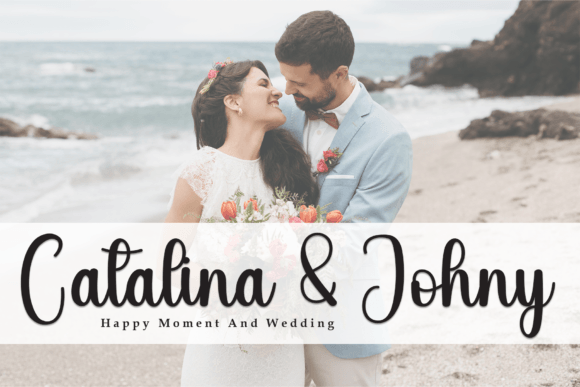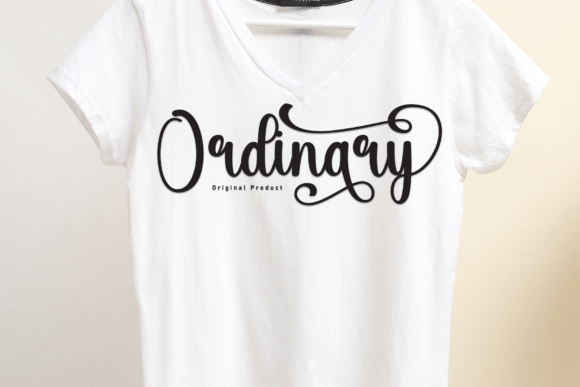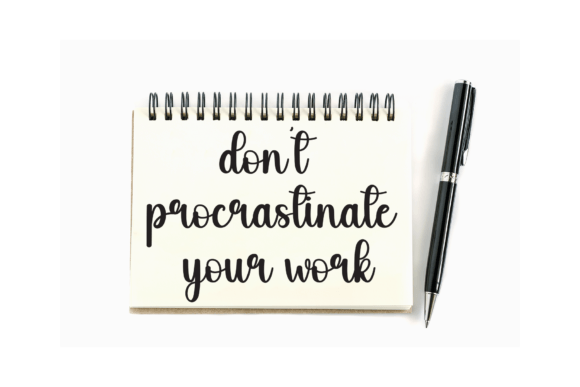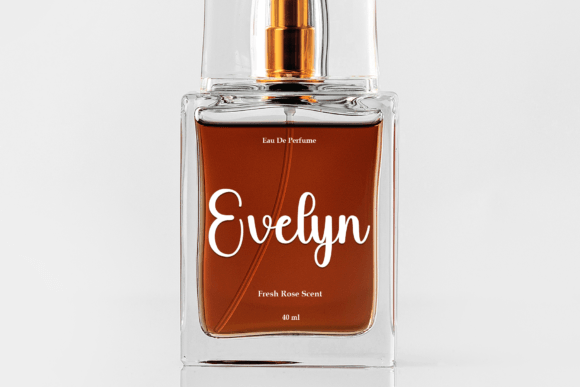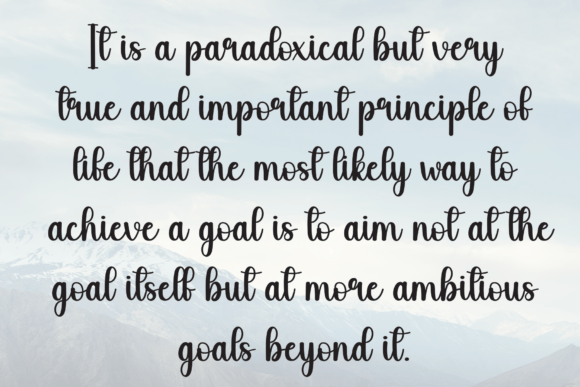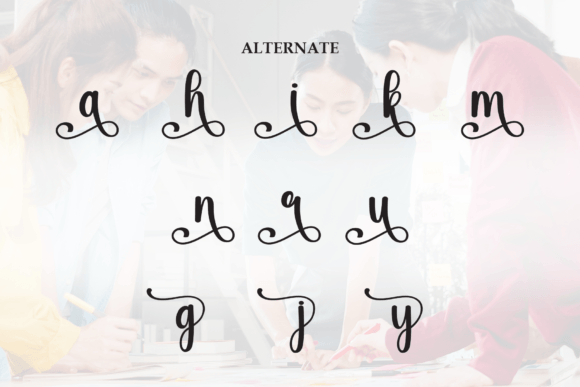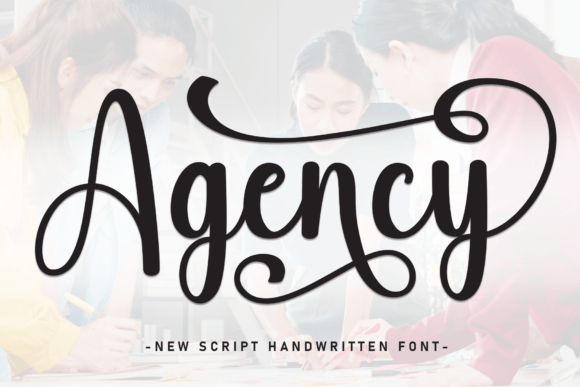
Introducing Agency Font: The Sweet and Friendly Handwritten Display Font
Are you looking for a font that can add a touch of fun and whimsy to your designs? Look no further than Agency Font, a sweet and friendly handwritten display font that’s perfect for a variety of creative projects. In this article, we’ll take a closer look at Agency Font, its features, and how you can use it to elevate your designs.
What is Agency Font?
Agency Font is a beautiful, handwritten display font that’s designed to bring a smile to your face. With its cute and fun appearance, this font is ideal for writing wedding invitations, cards, or any other design that might need a fun touch. Whether you’re a designer, crafter, or DIY enthusiast, Agency Font is a great addition to your font collection.
Key Features of Agency Font
• Handwritten appearance: Agency Font has a genuine handwritten look that’s perfect for creating personal and unique designs.
• Cute and fun: This font is designed to be playful and fun, making it ideal for designs that require a lighthearted touch.
• Display font: Agency Font is a display font, which means it’s perfect for headlines, titles, and other prominent text elements.
• Easy to read: Despite its playful appearance, Agency Font is easy to read, making it suitable for both digital and print designs.
Use Cases for Agency Font
Agency Font is a versatile font that can be used in a variety of creative projects. Here are some ideas to get you started:
• Wedding invitations: Add a touch of whimsy to your wedding invitations with Agency Font. It’s perfect for creating beautiful, handmade-style invitations that will set the tone for your special day.
• Greeting cards: Agency Font is ideal for creating fun and playful greeting cards for birthdays, holidays, and other special occasions.
• DIY crafts: If you’re a crafter or DIY enthusiast, Agency Font is a great font to use for your projects. It’s perfect for creating signs, banners, and other decorative elements.
• Digital designs: Agency Font can also be used in digital designs, such as social media graphics, blog posts, and email newsletters.
Tips for Using Agency Font
Here are some tips for getting the most out of Agency Font:
• Use it sparingly: Agency Font is a display font, so it’s best to use it sparingly. Use it for headlines and titles, and a more straightforward font for body text.
• Experiment with colors: Agency Font looks great in a variety of colors, so don’t be afraid to experiment. Try pairing it with bright, bold colors for a fun and playful look.
• Pair it with other fonts: Agency Font can be paired with other fonts to create a unique and interesting look. Try pairing it with a sans-serif font for a modern contrast.
Agency Font is a sweet and friendly handwritten display font that’s perfect for adding a touch of fun and whimsy to your designs. With its cute and playful appearance, this font is ideal for wedding invitations, cards, DIY crafts, and digital designs. By following the tips outlined in this article, you can get the most out of Agency Font and create beautiful, unique designs that will stand out from the crowd.